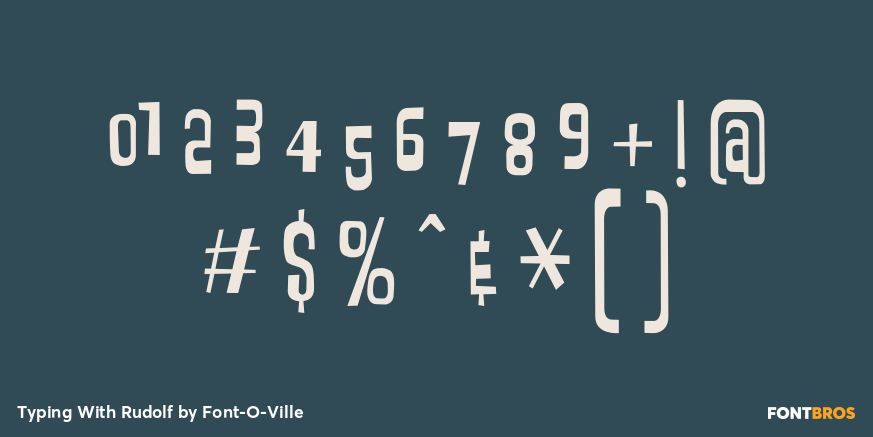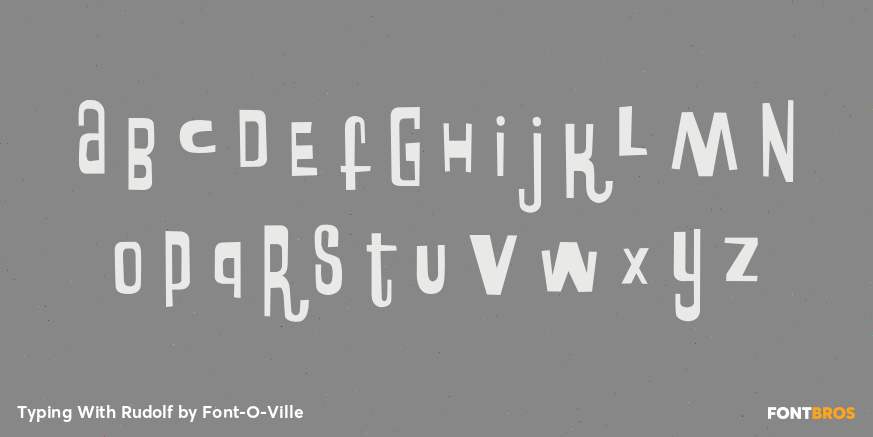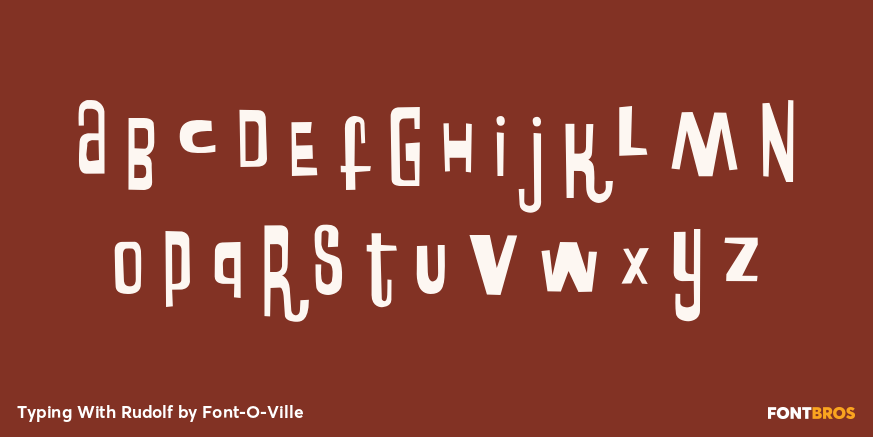
Typing With Rudolf
Font Family by Font-O-Ville
Typing With Rudolf is a playful, offbeat display font with a fun, wacky personality. Its quirky look gives words an animated, lighthearted feel, making it a strong choice when you want typography to do more than simply sit on the page.
Offered as a single font style from Font-O-Ville, this face is well suited to attention-grabbing uses like posters, casual branding, party pieces, kids-focused designs, packaging, and other decorative display work. If your project calls for something a little mischievous and full of character, this one brings that spirited tone quickly and clearly.